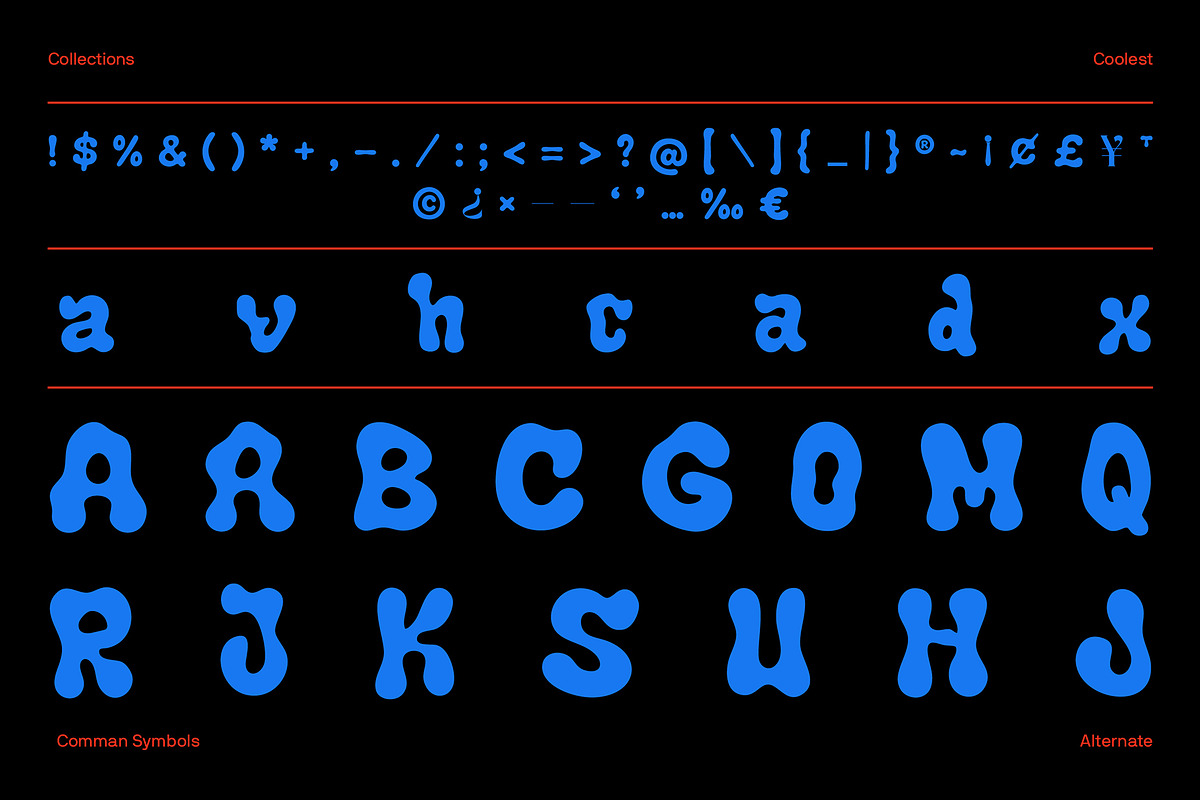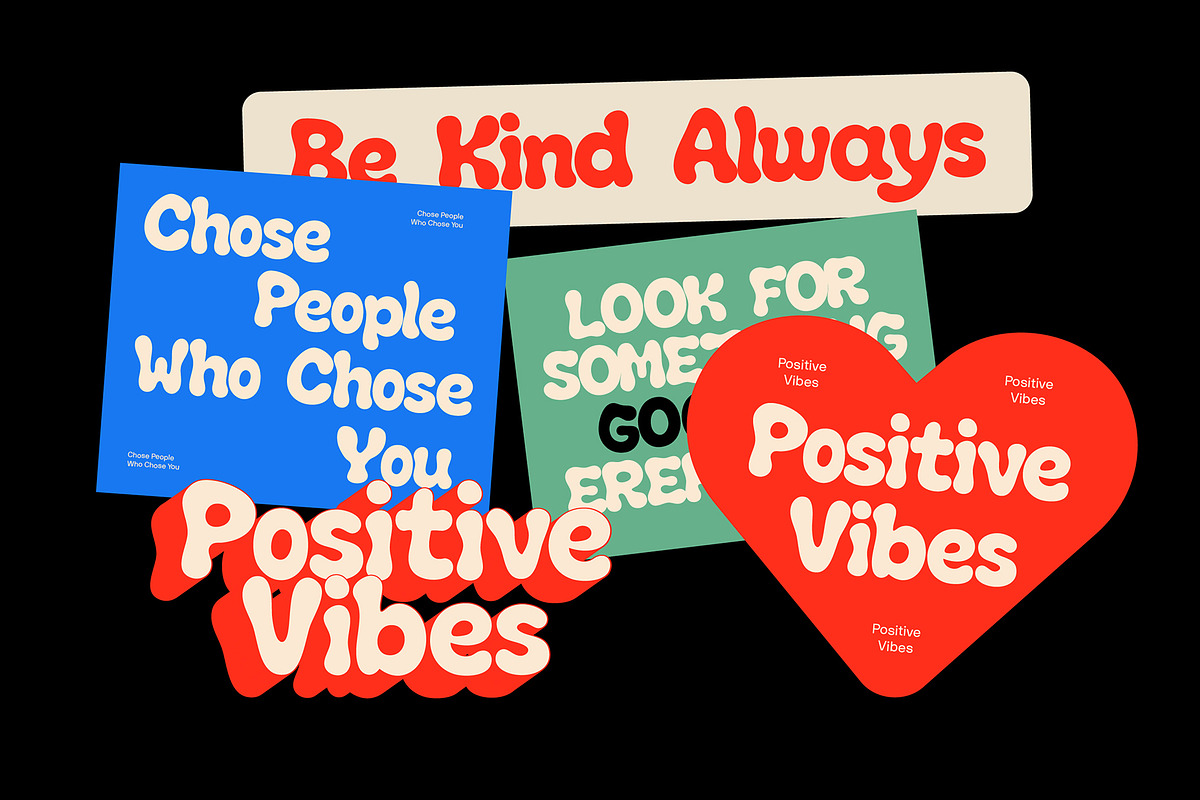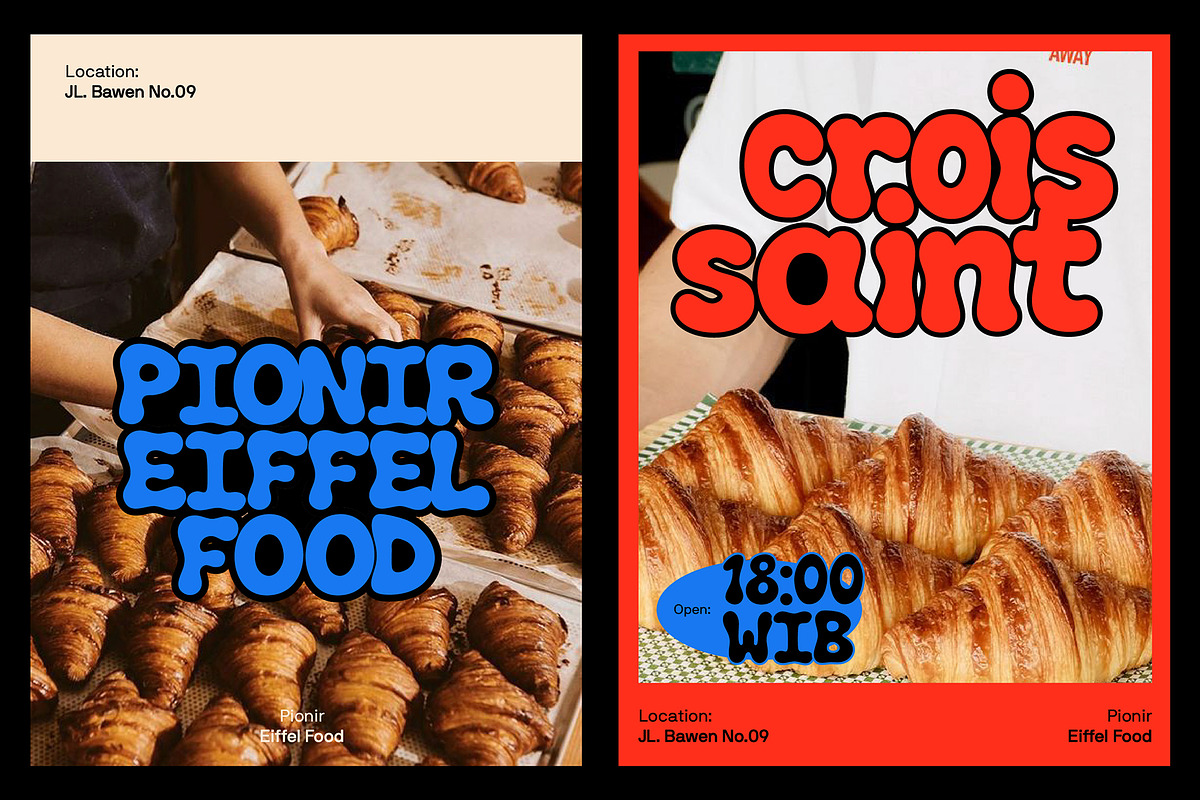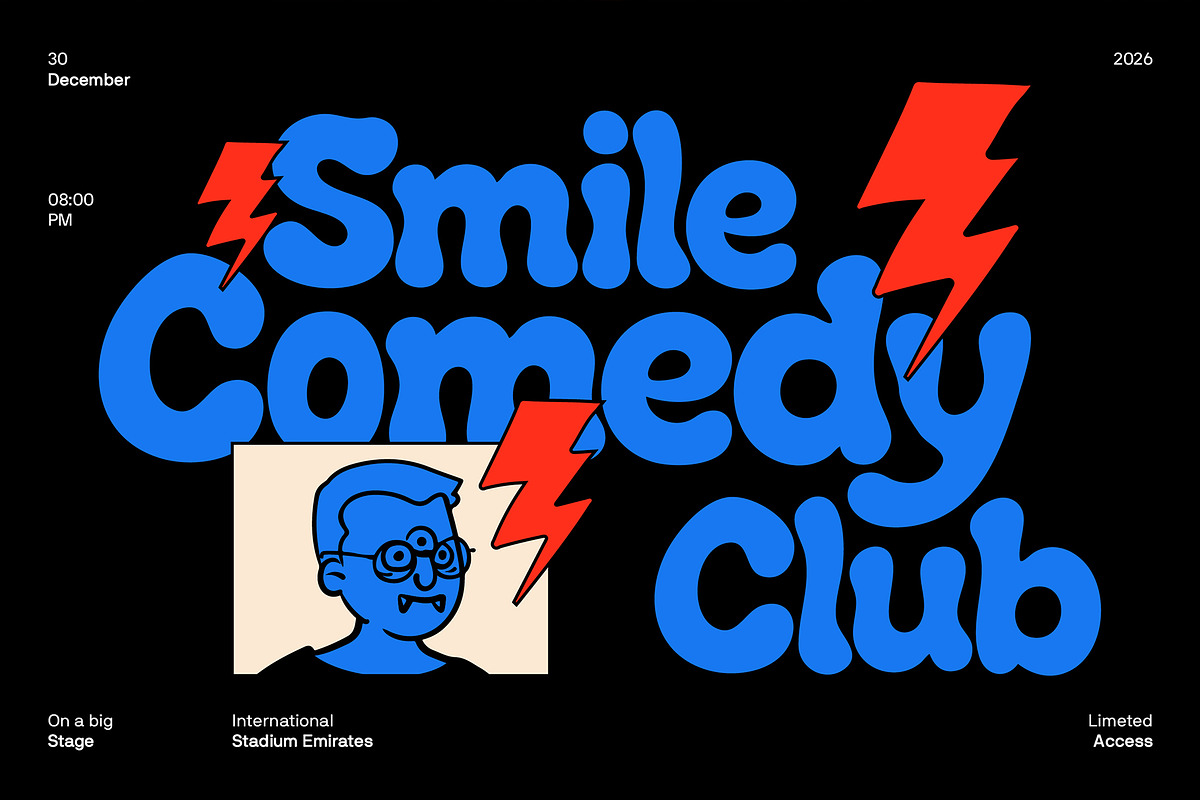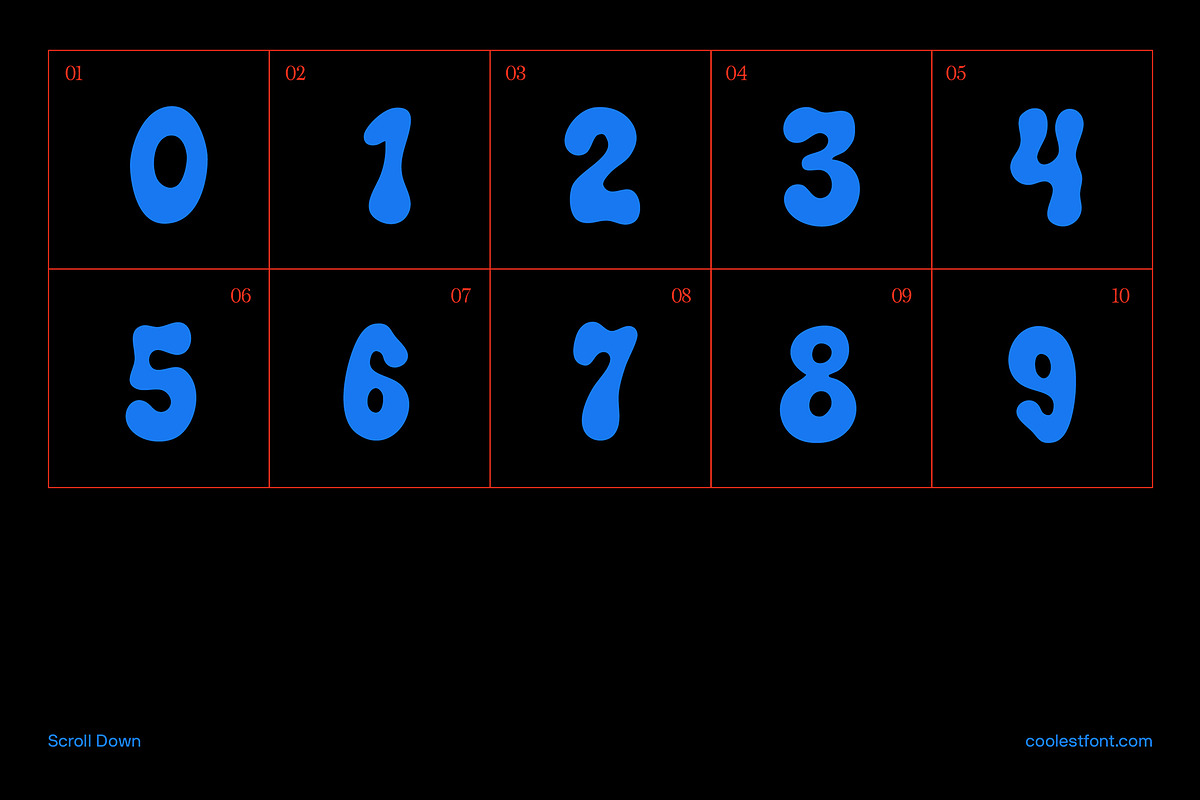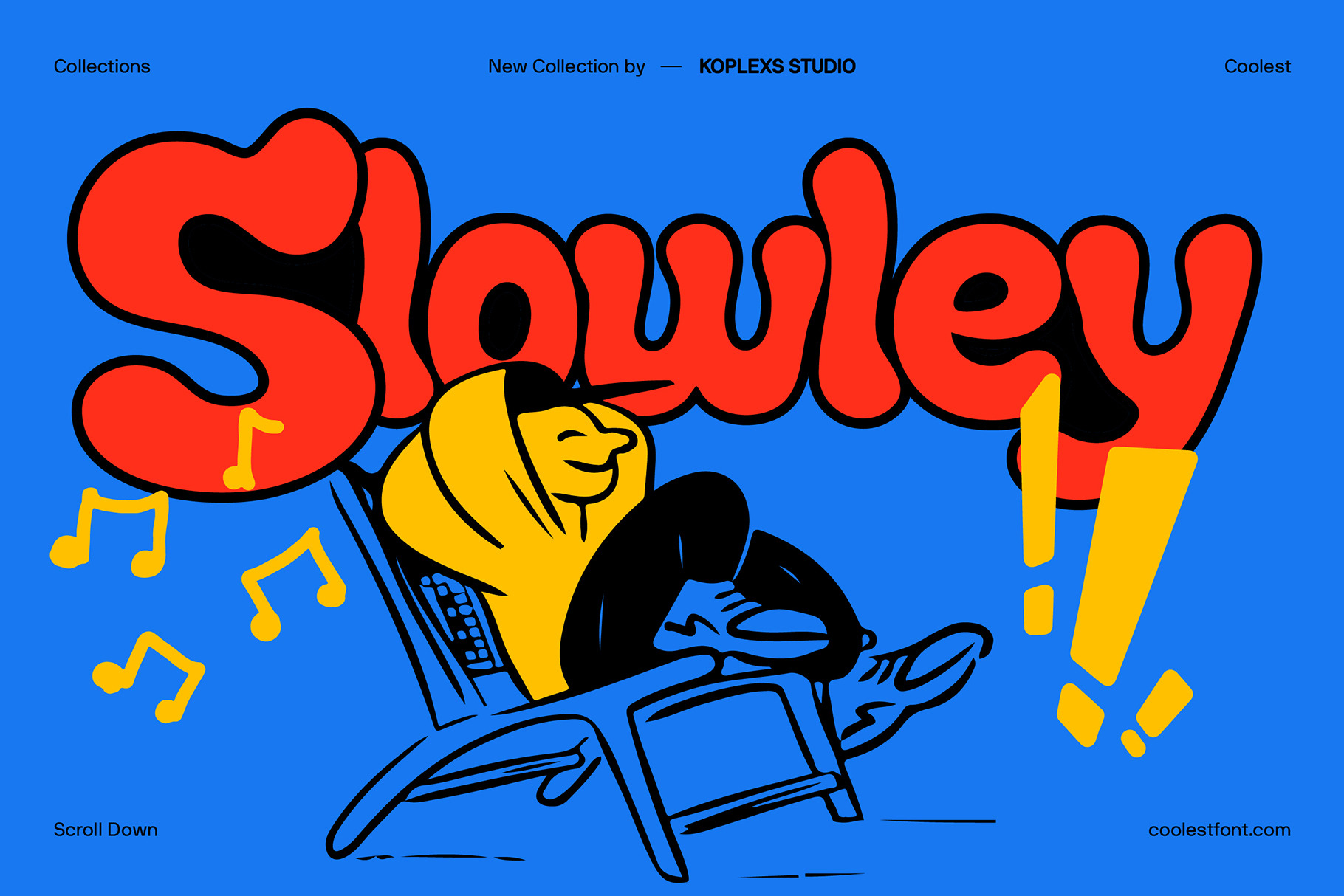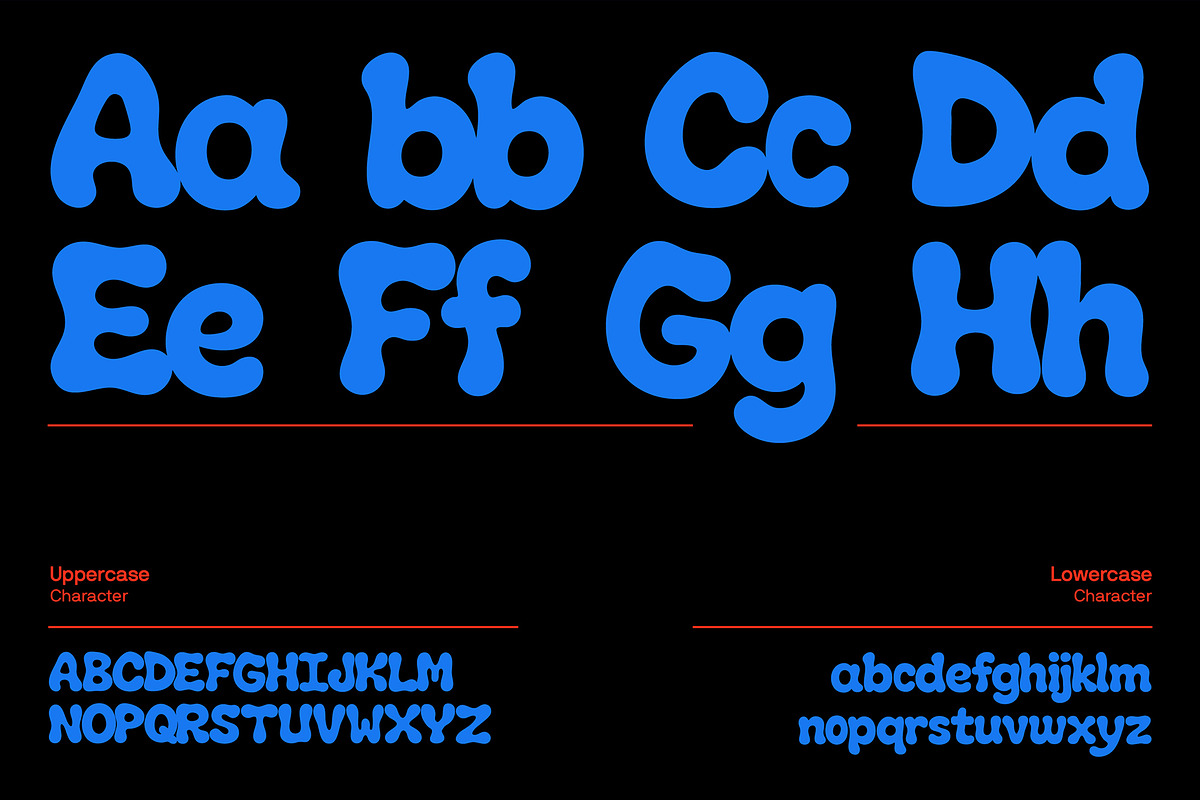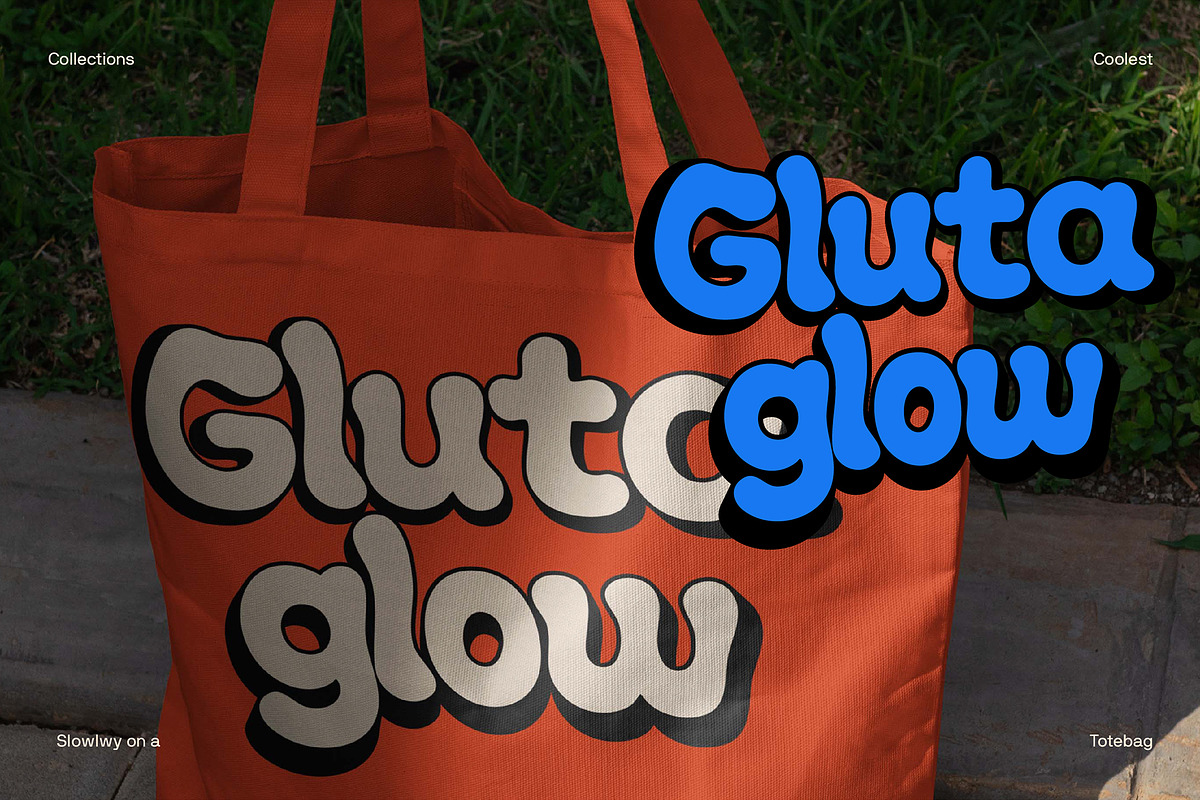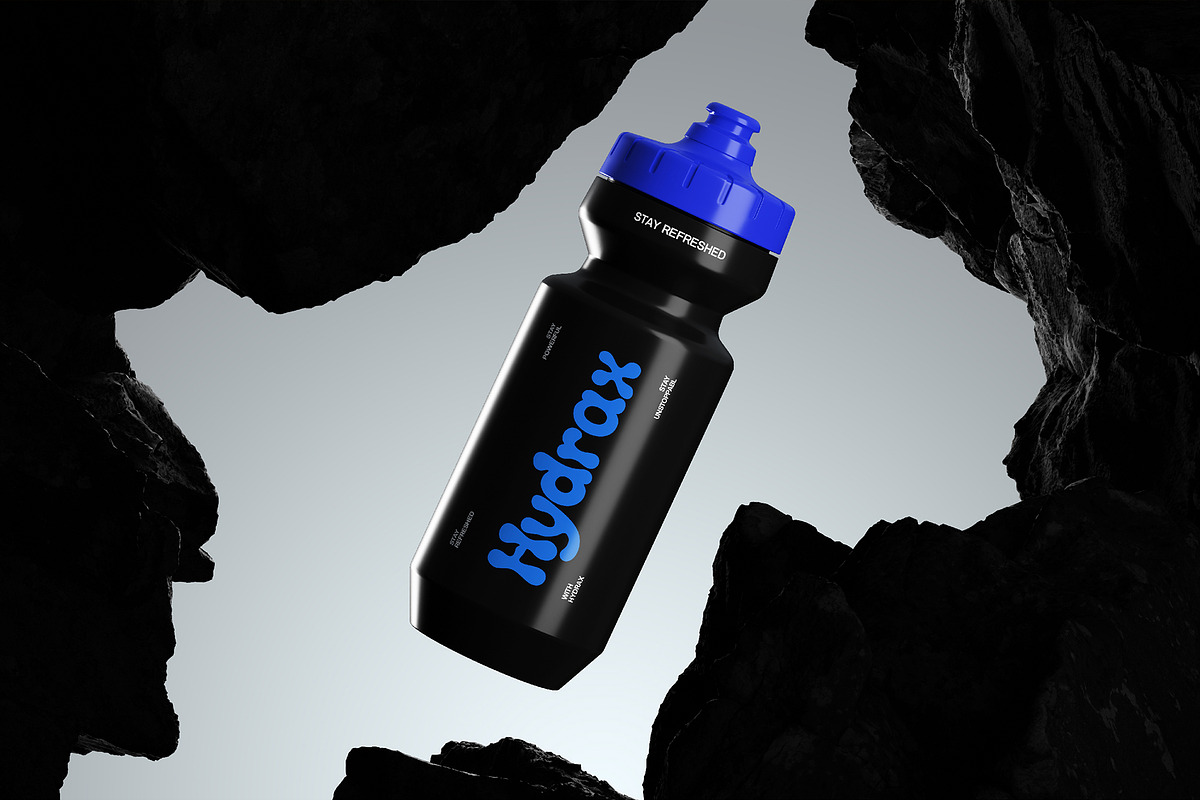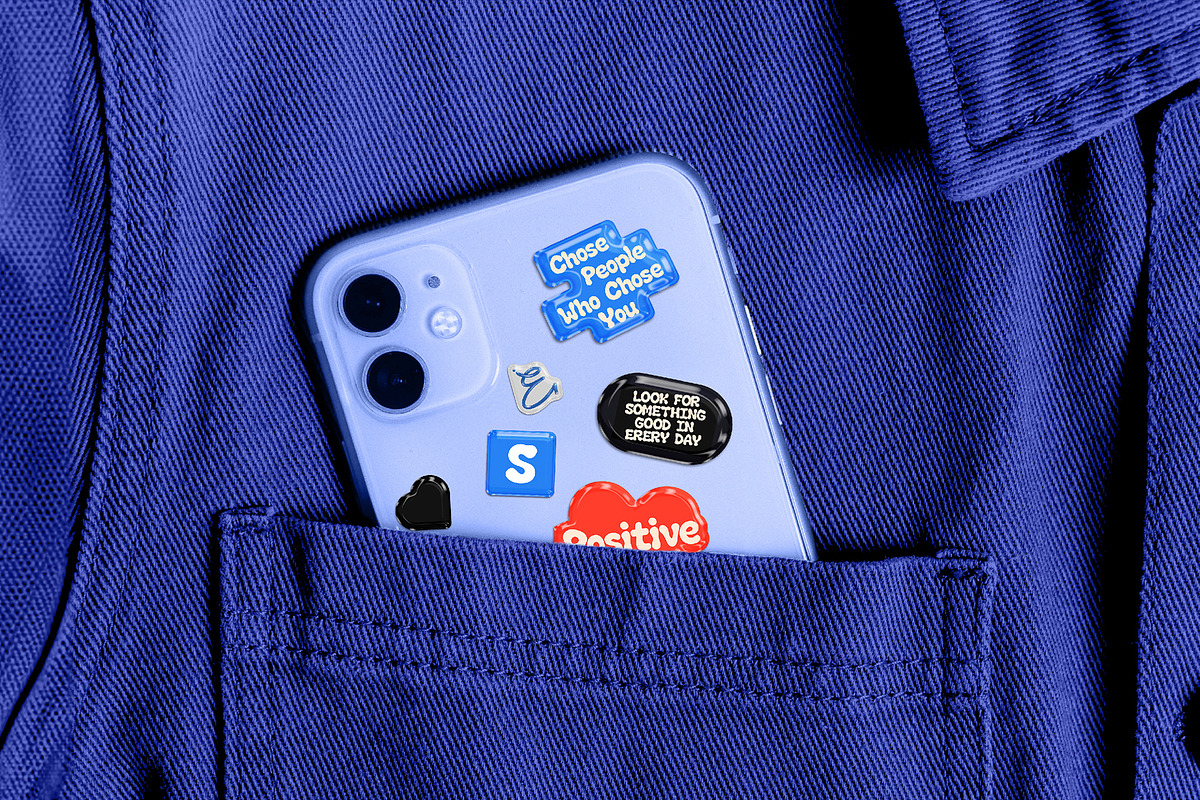
Slowley Font | Retro Bubble Font
Playful Retro Bubble Display Font
Slowley Font is a bold and expressive display font inspired by retro bubble lettering, funky vintage typography, and playful visual culture. Designed with thick rounded shapes and cheerful character styles, this unique bubble font brings strong personality and eye-catching energy into every creative project.
The font combines nostalgic retro aesthetics with modern design trends, making it perfect for branding, posters, packaging, merchandise, social media, and creative headline typography.
Featuring both Regular and Italic styles, Slowley Font gives designers more flexibility to create dynamic and engaging typography compositions. The Regular version delivers a bold and stable appearance, while the Italic style adds movement, rhythm, and playful retro vibes.
Included Styles
Slowley Regular
Slowley Italic
Uppercase & lowercase
Bold rounded bubble shapes
Retro-inspired display style
Branding Identity
Poster & Flyer Design
Merchandise & Apparel
Kids & Fun Projects
YouTube Thumbnails
Creative Headlines
Stickers & Labels
Design Inspiration
Slowley Font takes inspiration from:
Retro bubble typography
Funky vintage graphics
Pop-art aesthetics
Cartoon lettering
Streetwear visuals
Playful modern branding
The thick curves and soft rounded forms create a warm and approachable appearance while still feeling bold and highly noticeable.